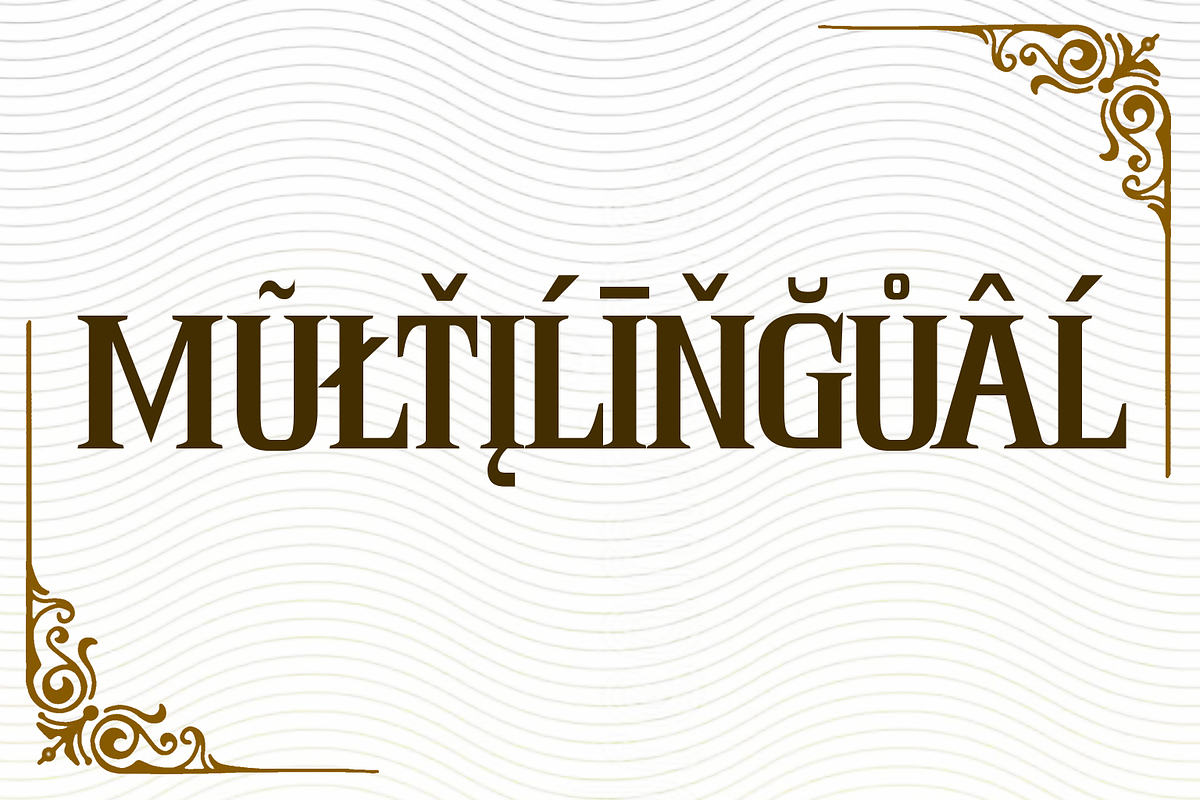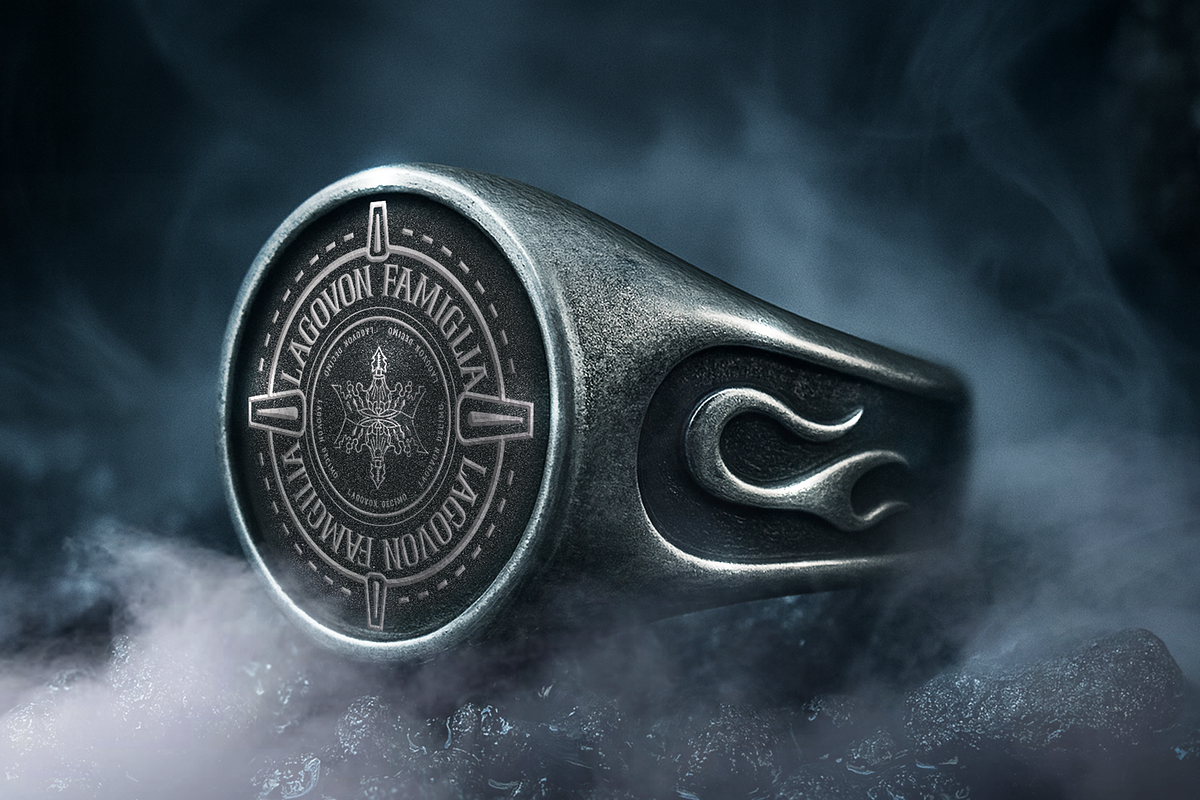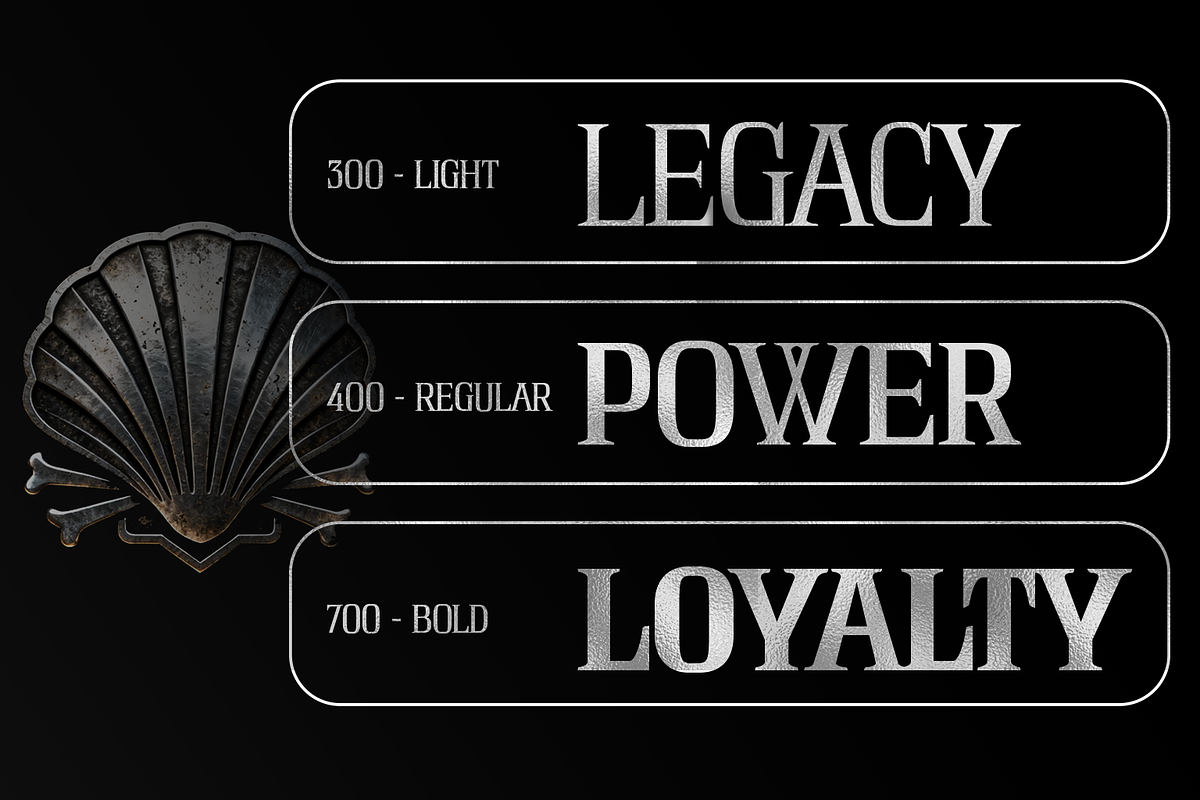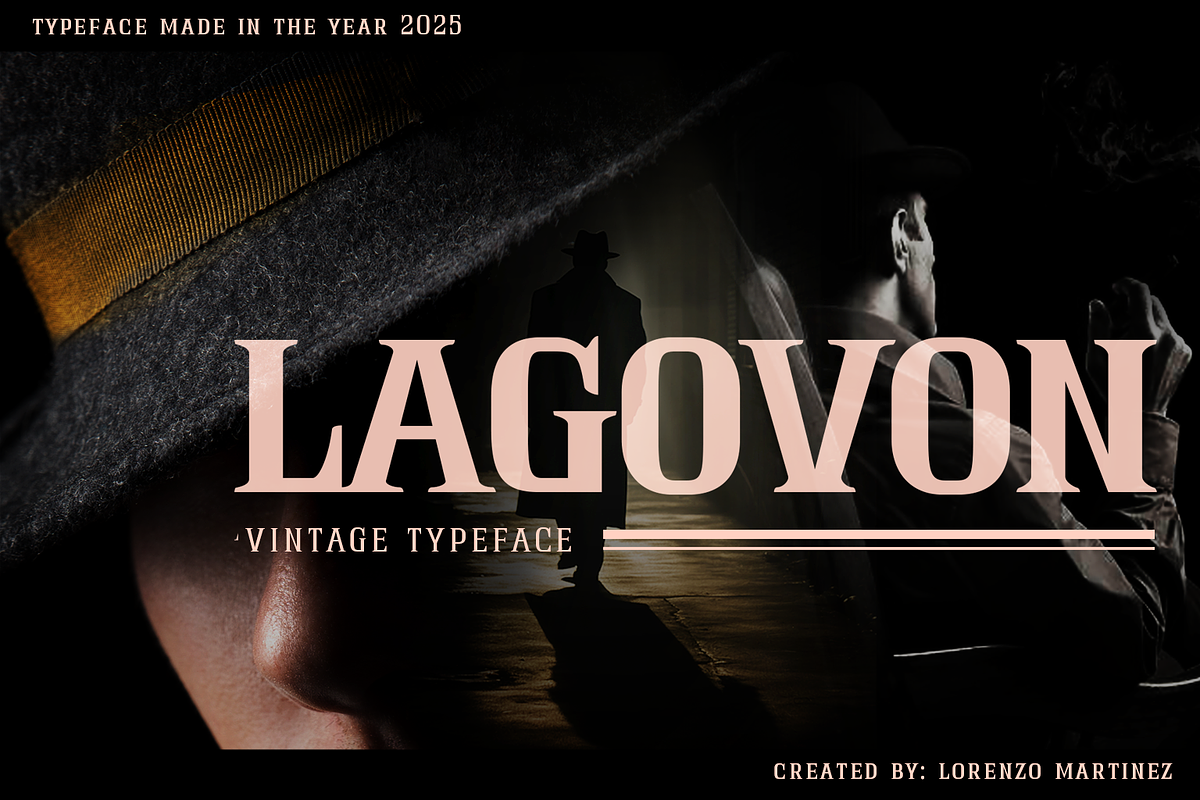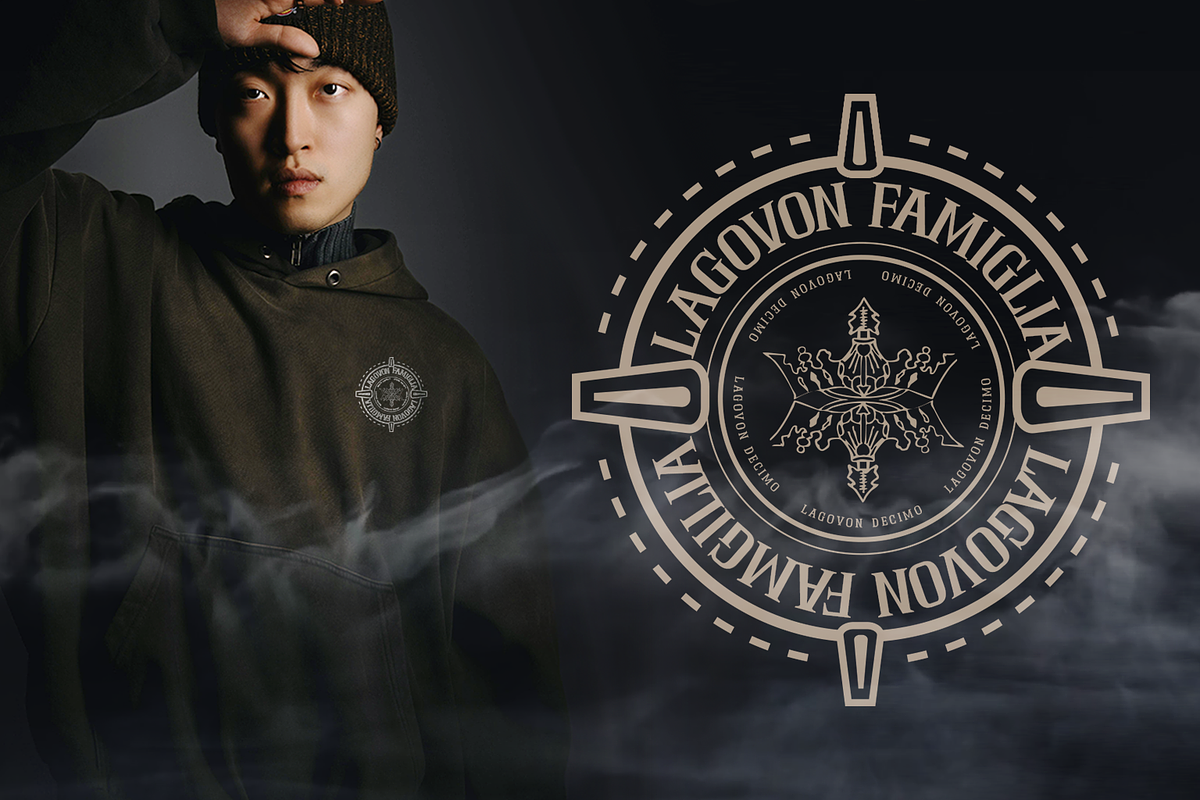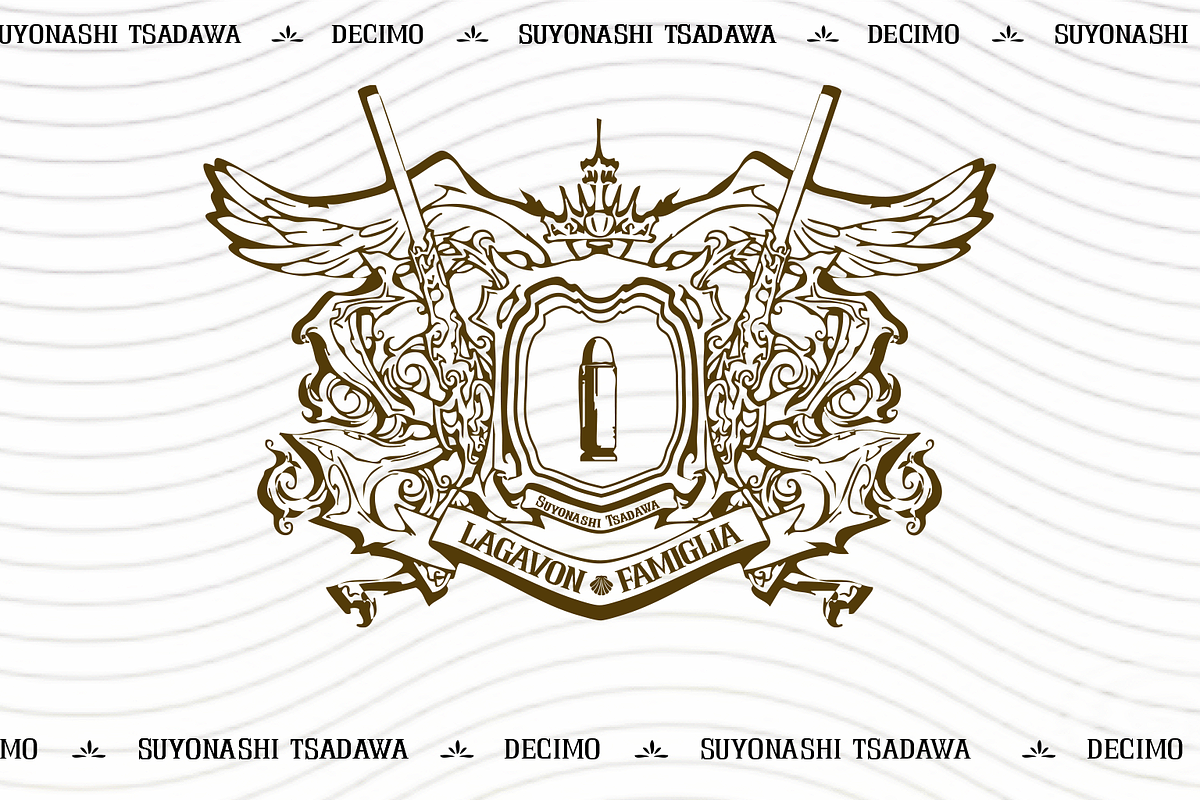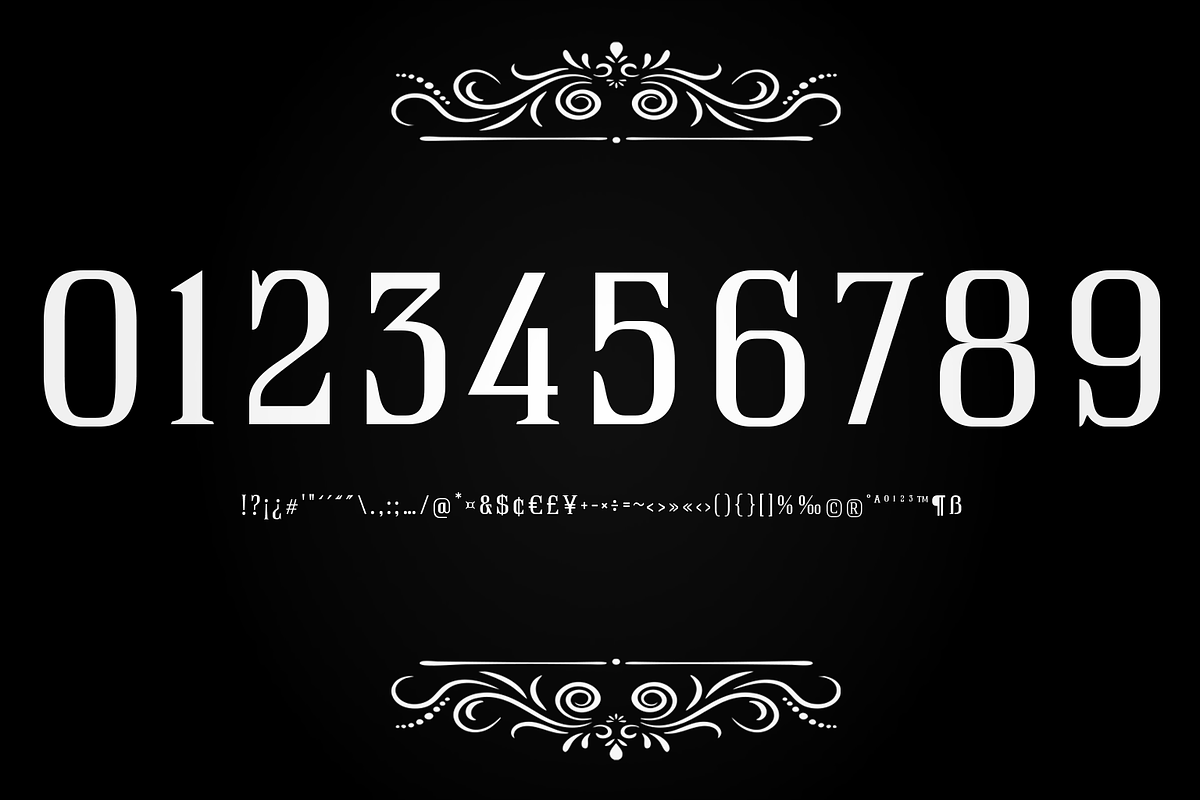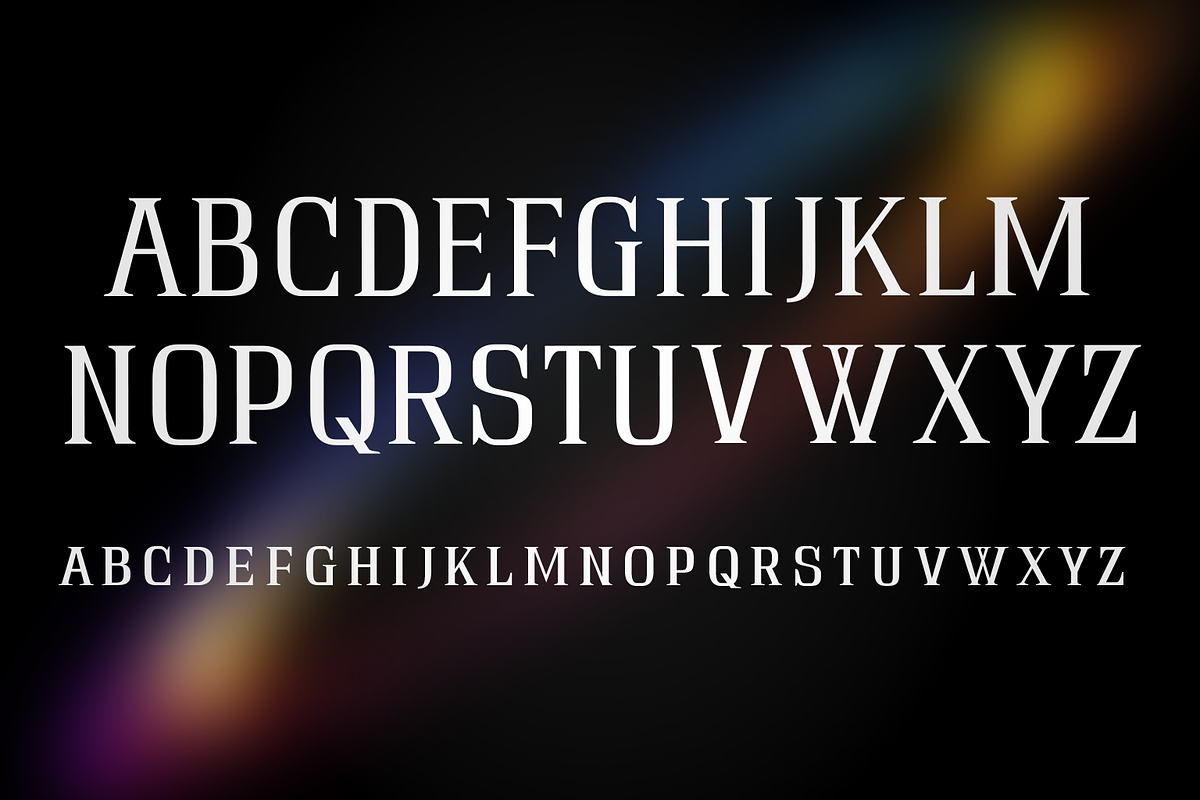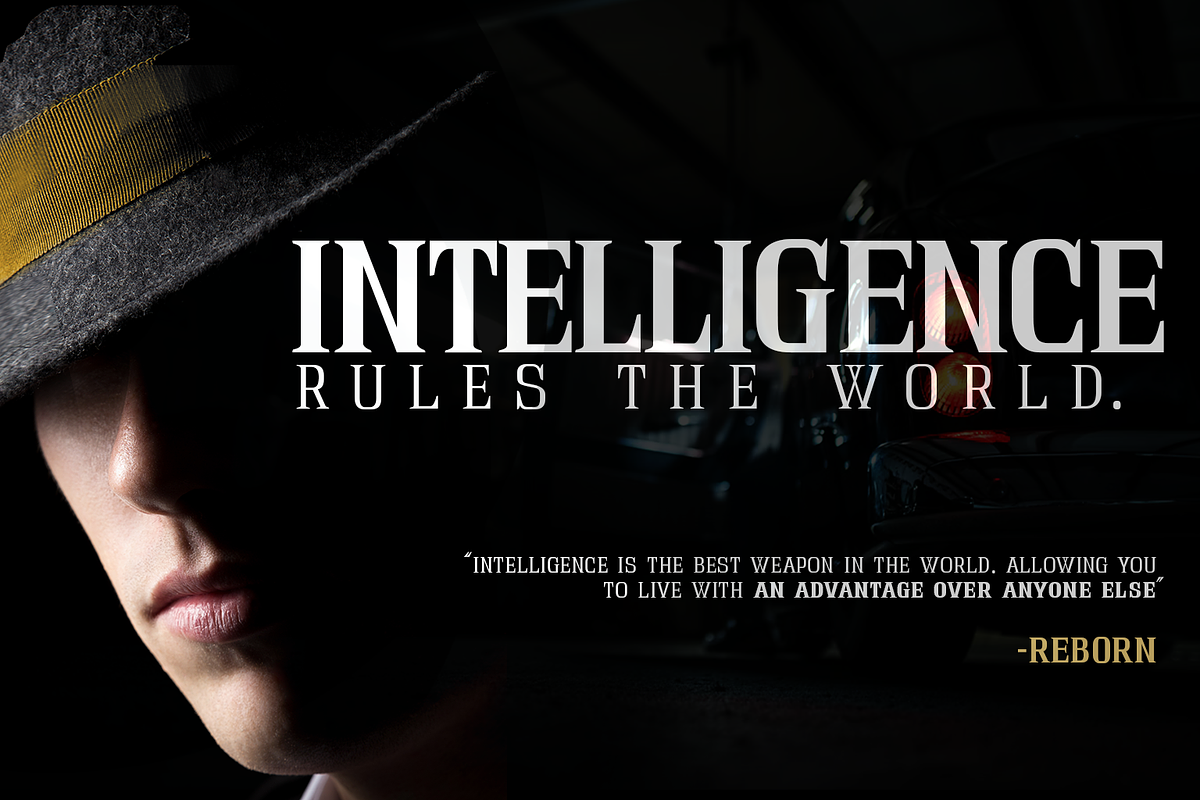
Lagovon - Vintage Typeface
Lagovon is a bold, condensed serif inspired by Katekyo Hitman Reborn, blending mafia noir, vintage aesthetics, and authoritative typography. Designed for striking visual impact, this display font delivers sharp elegance perfect for logos, posters, branding, packaging, certificates, editorial layouts, and themed projects. Perfect For: - Logo Design - Posters & Titles - Certificates & Seals - Vintage Branding - Anime-Inspired Projects - Product Packaging - Editorial & Social Media Graphics --- 💎 Features: - Strong mafia/noir aesthetic - Vintage-modern balance - Clean, authoritative letterforms - Global-use friendly